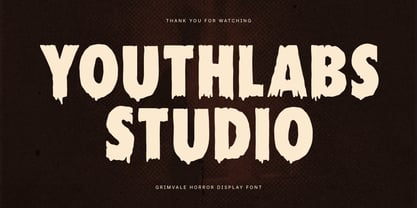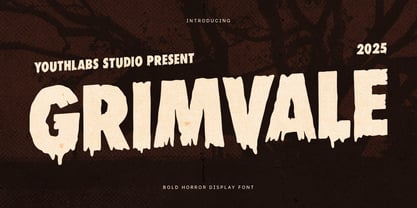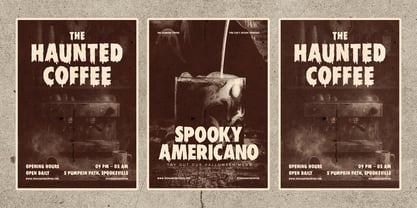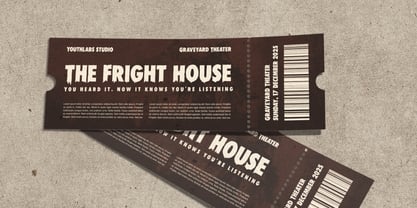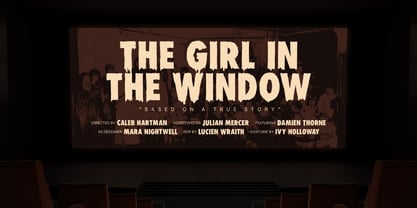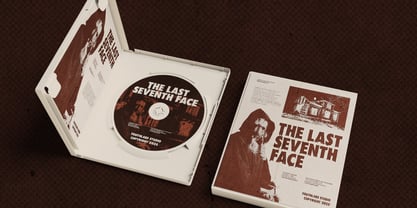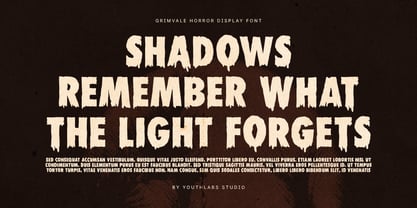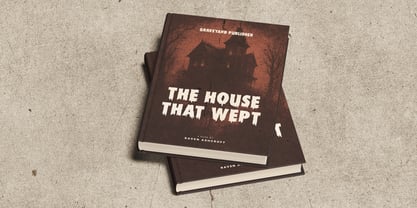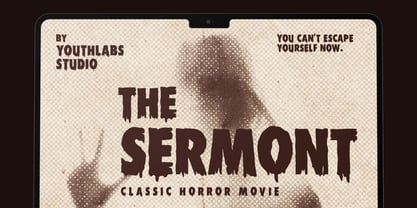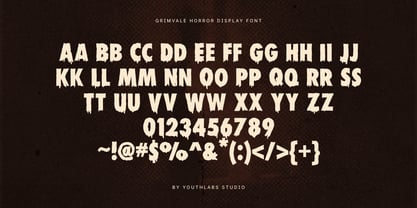
Grimvale
by Youthlabs
The Grimvale Font Family was designed by Fathi Al Ghazi and published by Youthlabs. Grimvale contains 1 styles.
Grimvale is a bold horror display font inspired by classic monster movies and eerie vintage posters. Its jagged edges and dripping details create a chilling atmosphere perfect for horror-themed projects. Use Grimvale to add a dark and dramatic touch to your movie titles, Halloween designs, posters, book covers, merchandise, or gaming graphics. This font embodies fear, tension, and retro fright — making it ideal for any spooky creative work.
Designers: Fathi Al Ghazi
Publisher: Youthlabs
Foundry: Youthlabs
Design Owner: Youthlabs